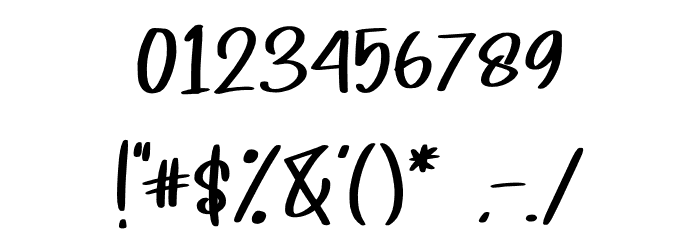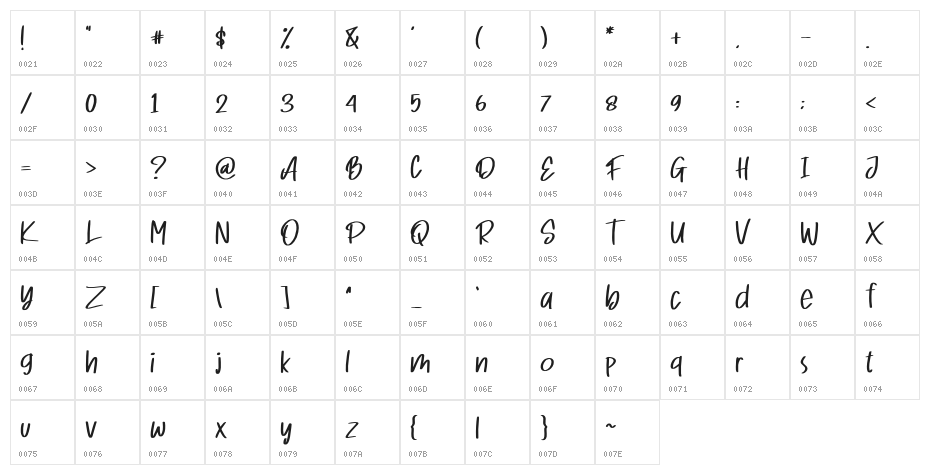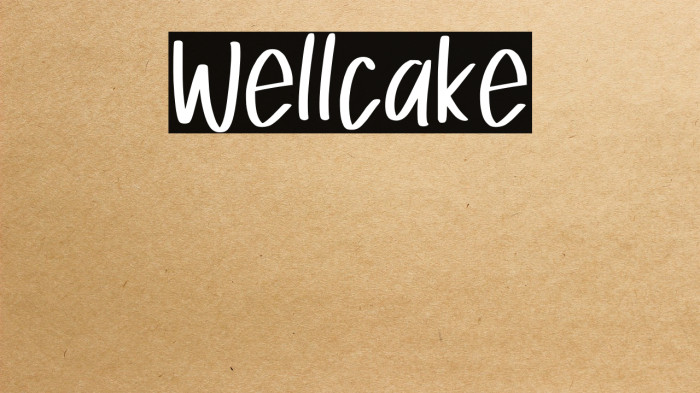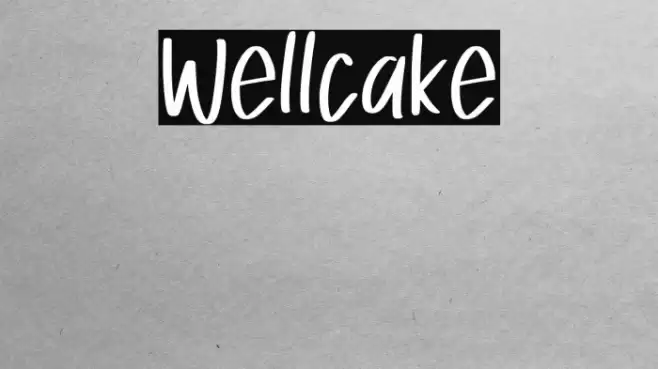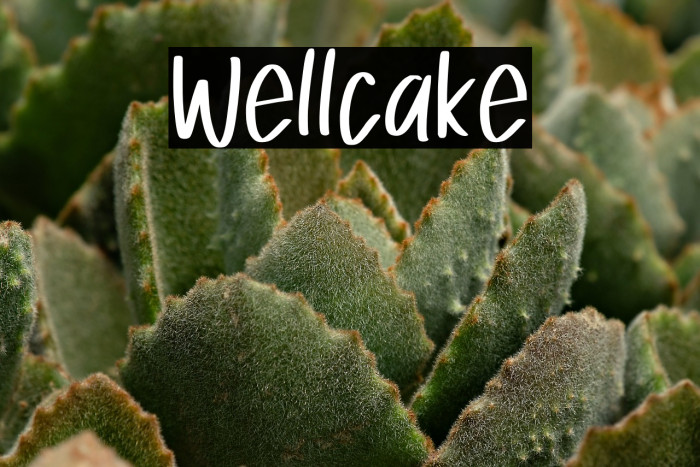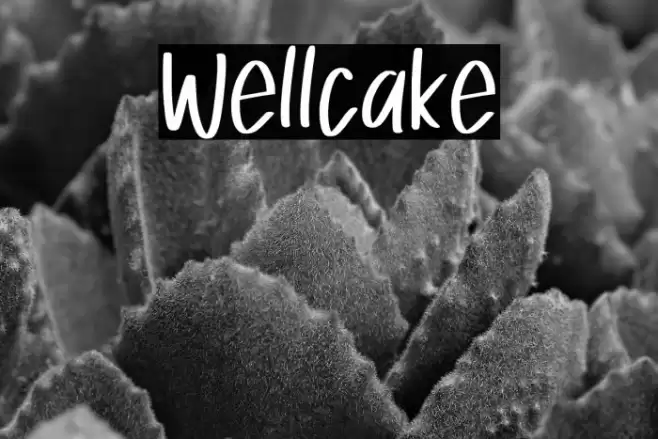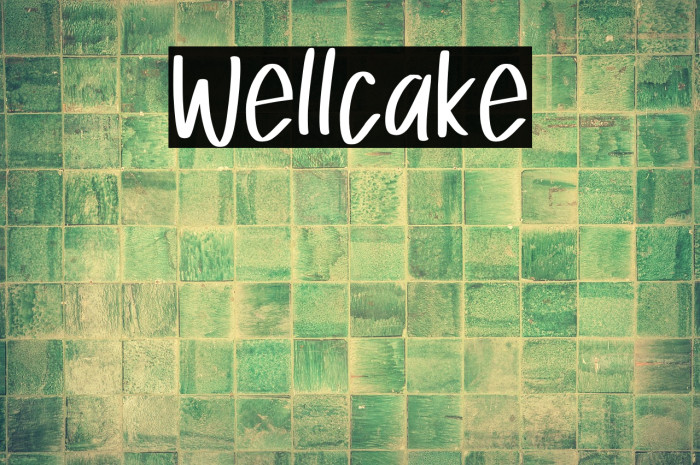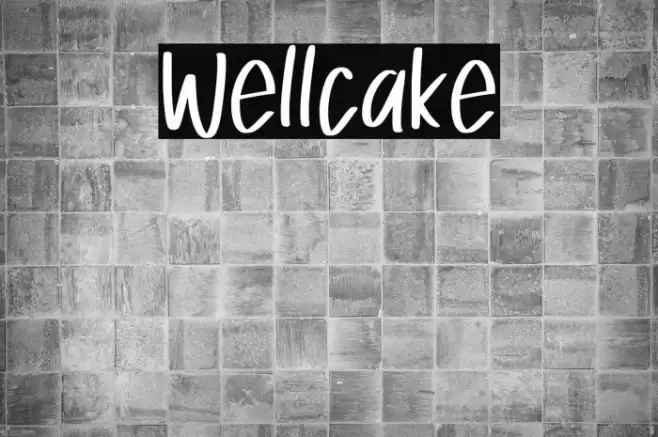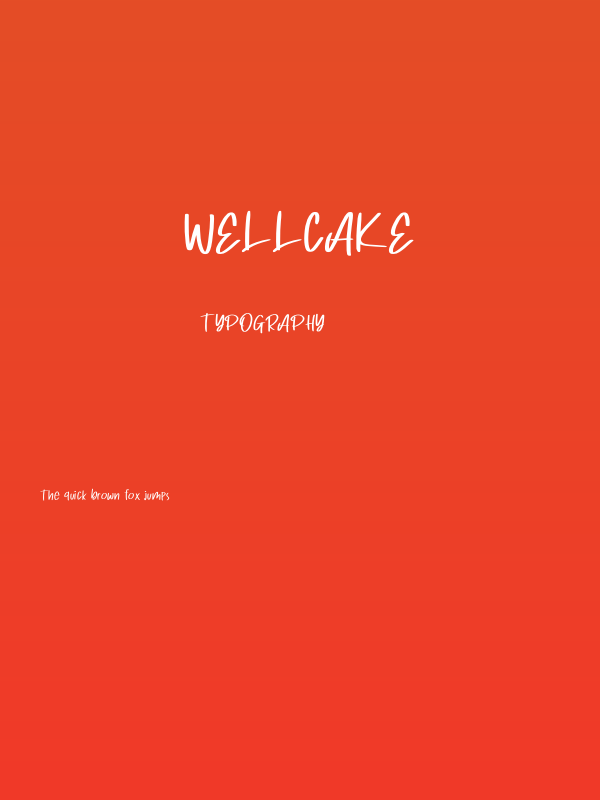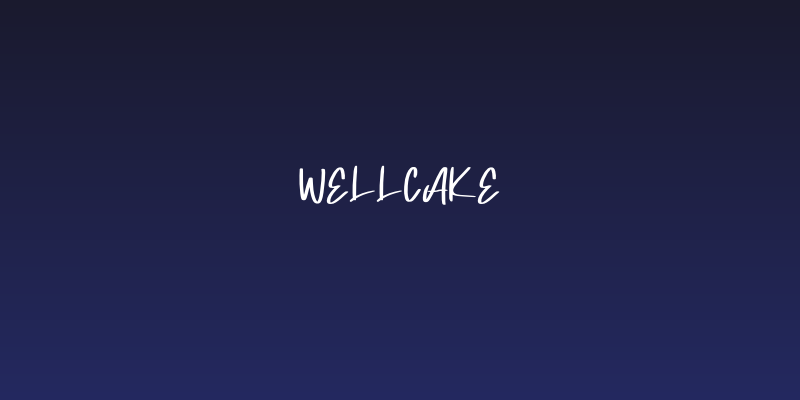
Wellcake Font
Wellcake Description
This font features a playful and energetic handwritten style, characterized by its smooth, flowing lines and slightly irregular shapes. The uppercase letters are bold and dynamic, with a slight slant that adds a sense of movement and spontaneity. The lowercase letters maintain this lively feel, with rounded edges and a consistent stroke width that ensures readability. Numbers and special characters are crafted with the same attention to detail, making them cohesive with the overall design. The font's informal and friendly appearance makes it suitable for projects that require a personal touch.